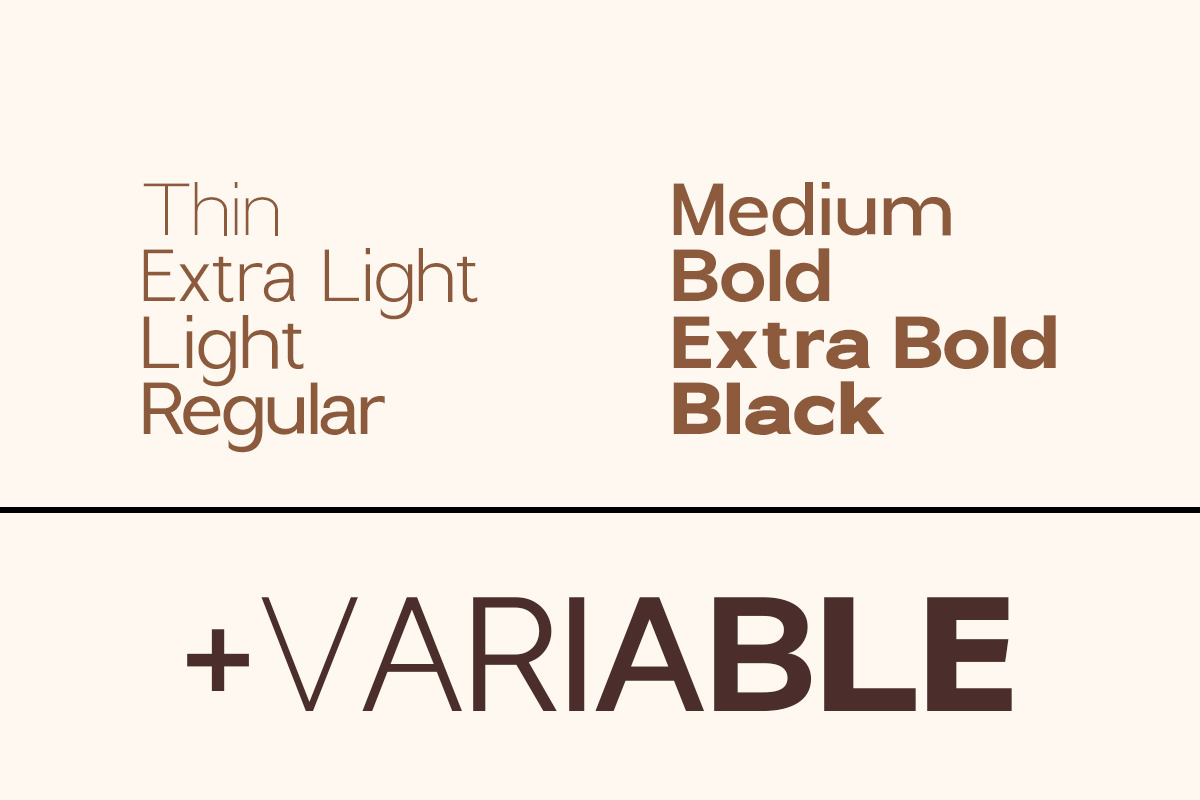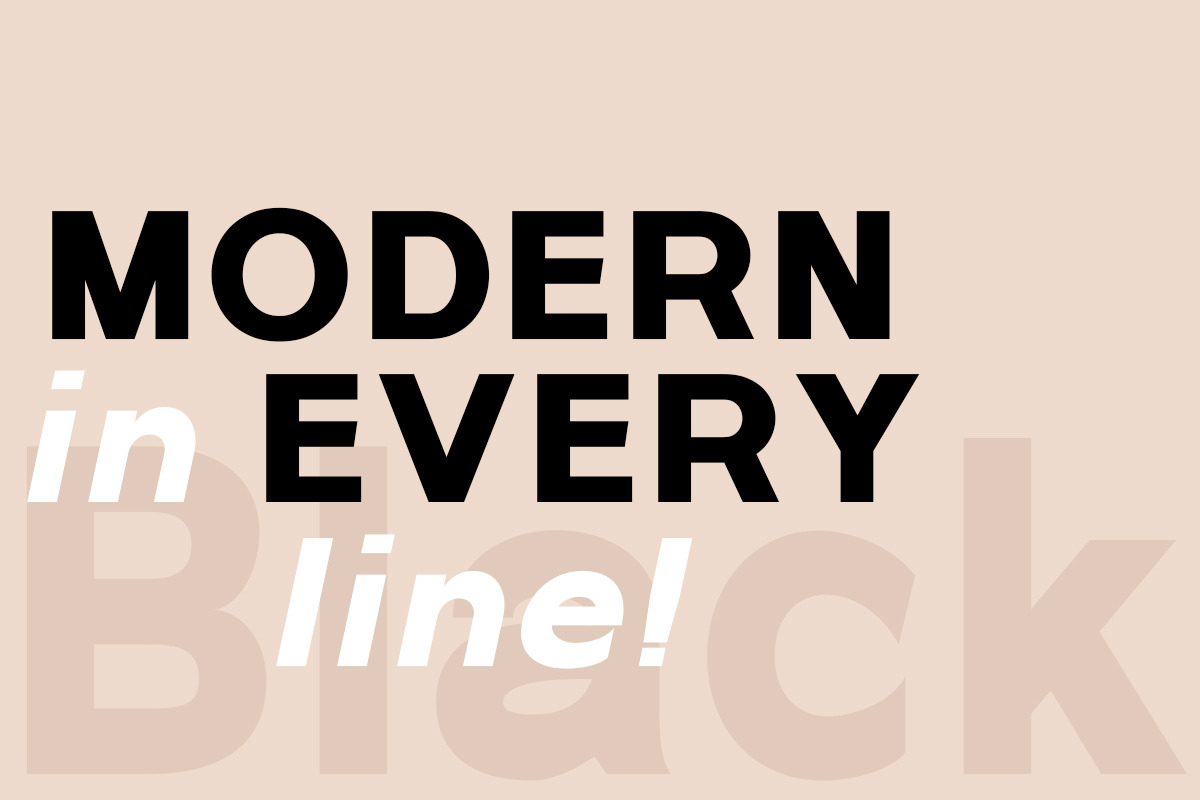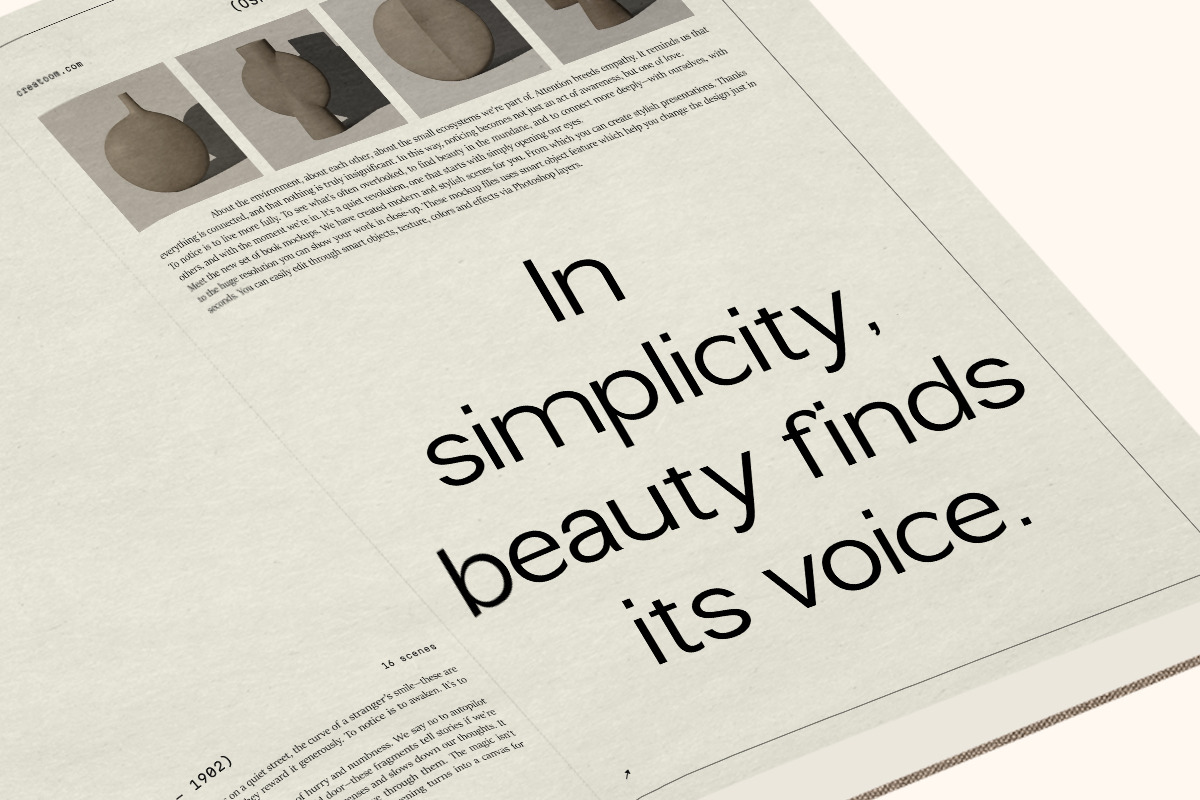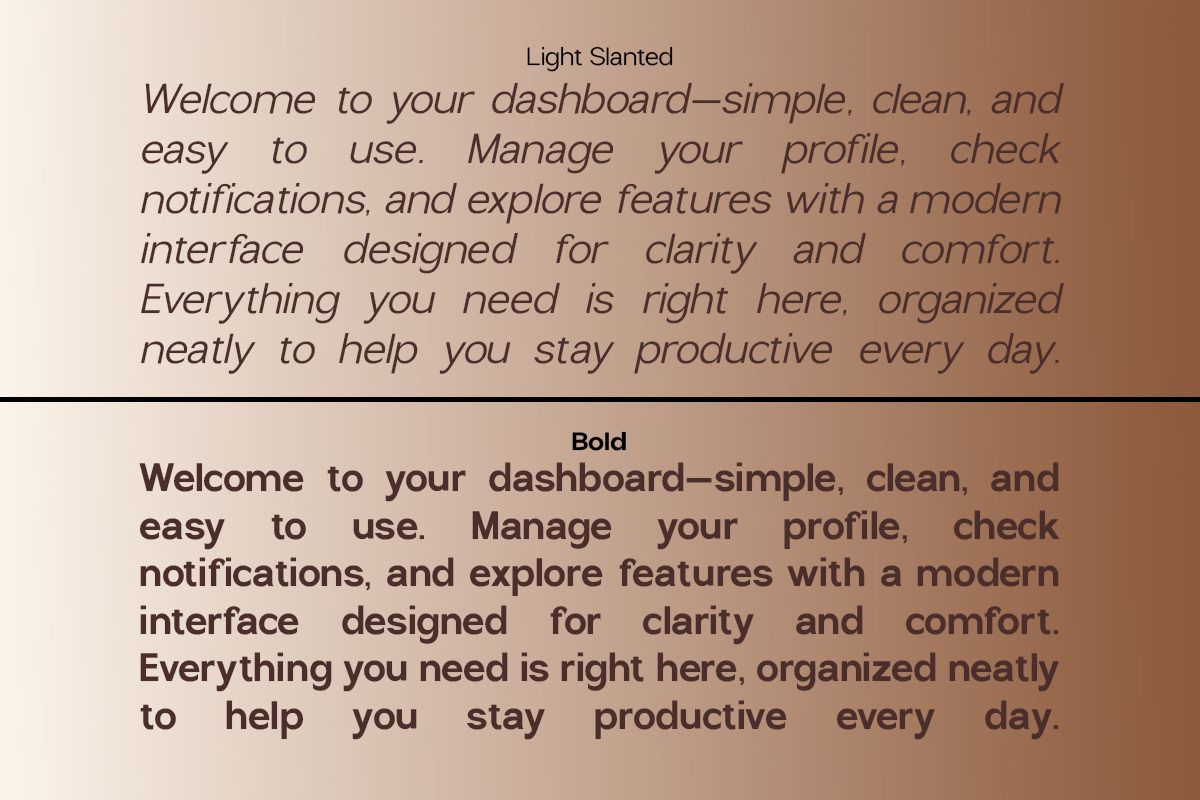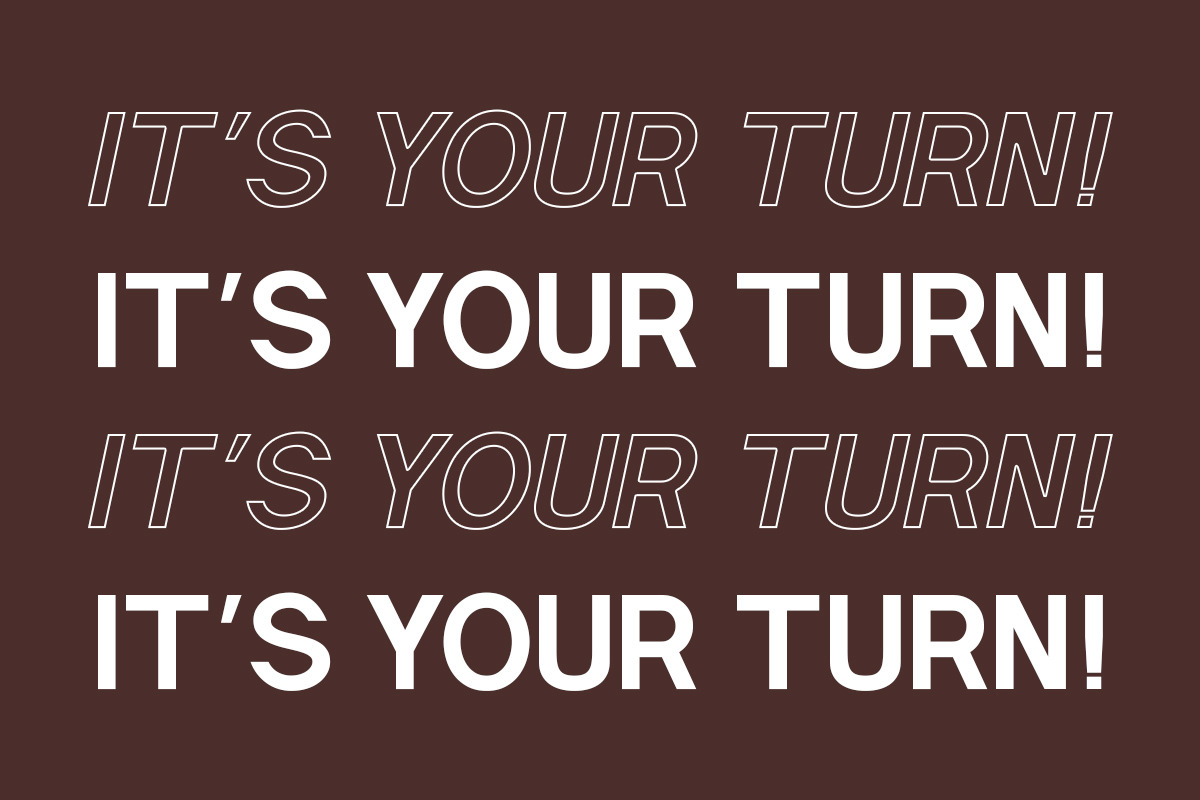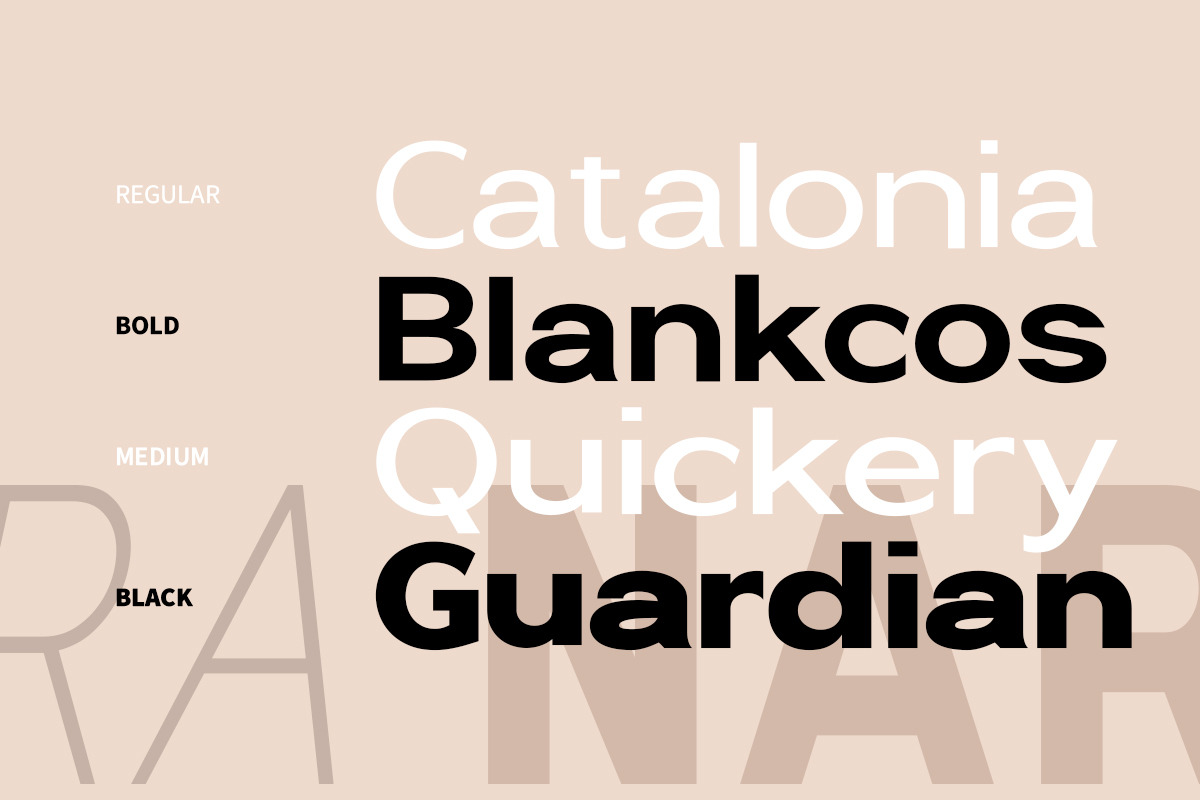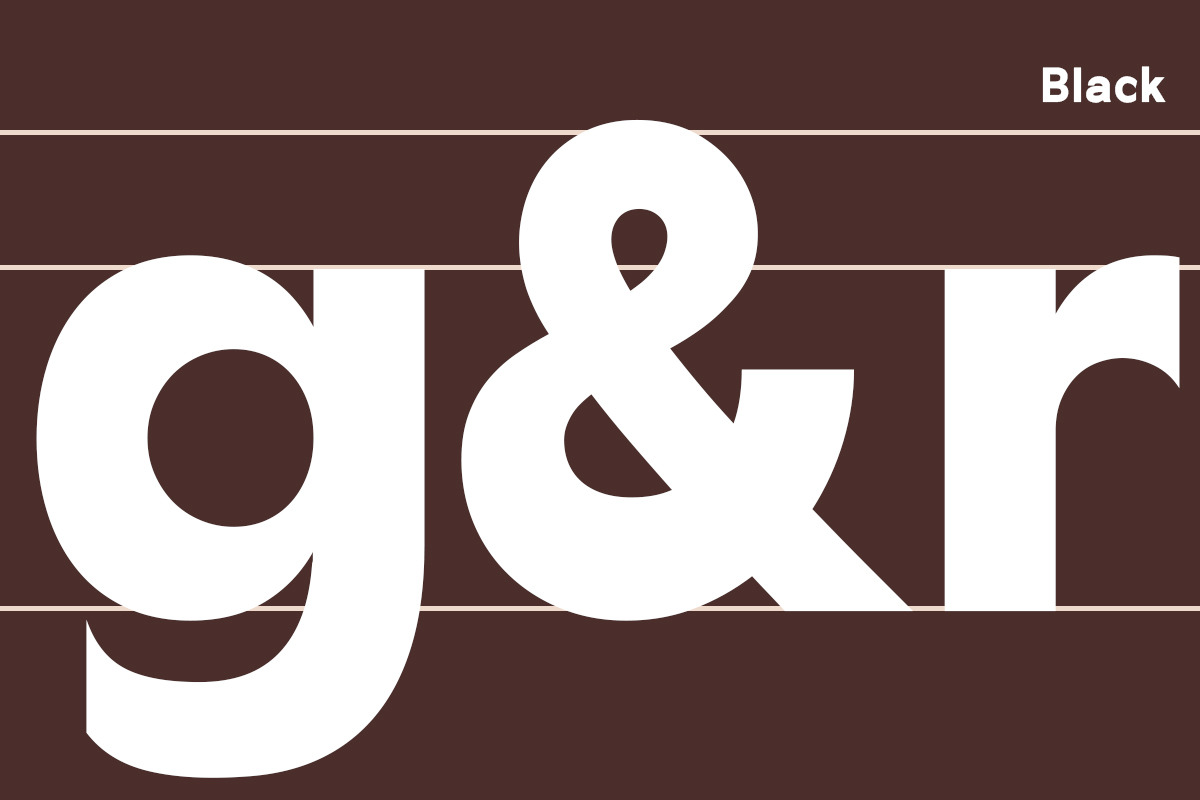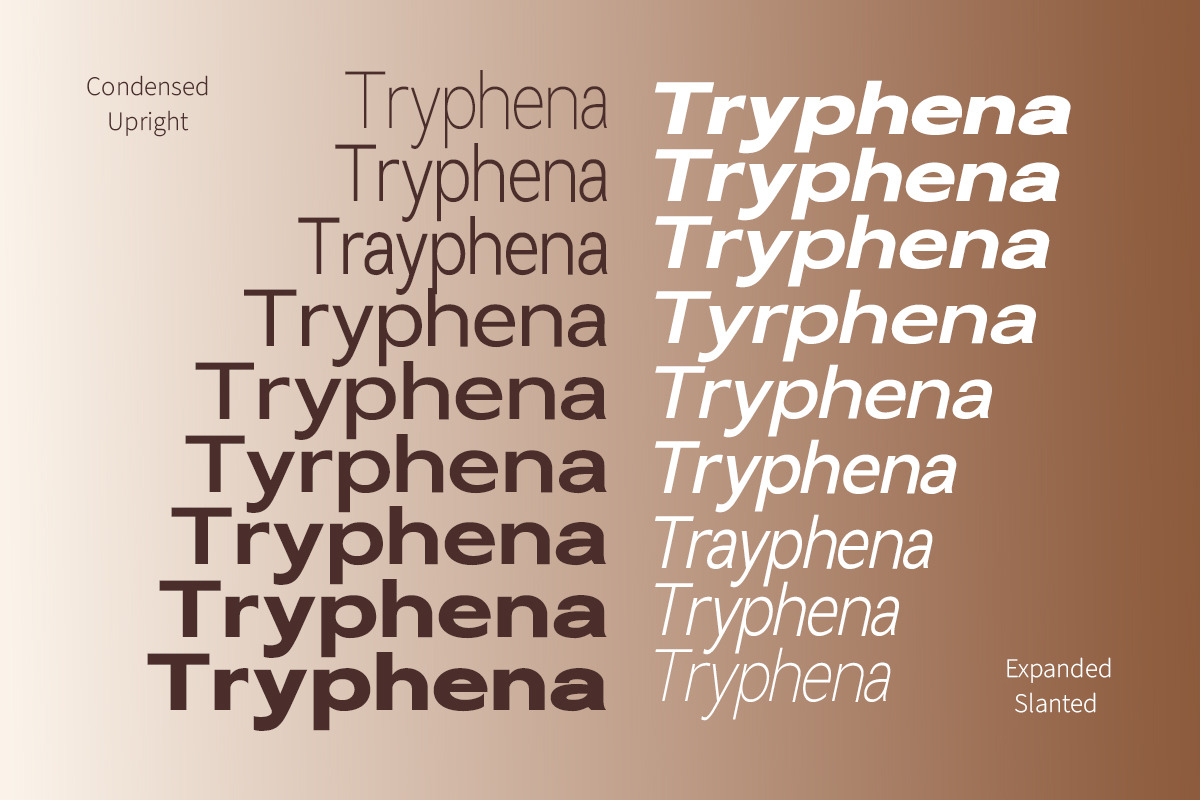
NIRA NARA
NIRA NARA is a modern variable sans serif typeface designed to meet the demands of contemporary design with precision and versatility. Comprising 100 font files, it offers an extensive range of weights and styles, enabling maximum flexibility across diverse visual applications.
Built with clean forms, balanced proportions, and excellent legibility, NIRA NARA is highly suitable for professional use including branding, editorial design, digital interfaces (UI/UX), and print media. Its variable font technology allows for smooth and efficient typographic adjustments, ensuring seamless transitions between styles while maintaining visual consistency.
Engineered for both performance and aesthetics, NIRA NARA serves as a comprehensive typographic solution for designers seeking a refined, flexible, and modern font system in a single cohesive family.